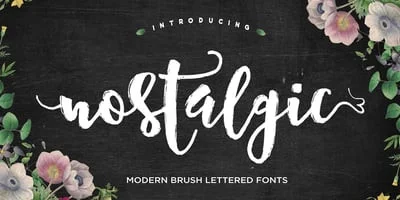
Nostalgic Script
Nostalgic Script Font
Nostalgic Script Font is a wonderfully evocative and charming typeface, perfect for designs that aim to capture a sense of classic elegance, heartfelt sentiment, and vintage appeal. Imagine it gracing sophisticated wedding invitations, adding a timeless touch to artisanal product packaging, or creating a warm, inviting feel for heritage brand logos. It’s an exceptional choice for designing elegant greeting cards, crafting refined editorial layouts, enhancing vintage-themed event posters, and personalizing social media graphics with a bespoke touch. Its graceful flourishes and authentic handwritten feel make it ideal for anything from bespoke stationery to charming historical reproductions, adding a layer of genuine sentiment.
What makes Nostalgic Script Font truly exciting is its remarkable ability to evoke a bygone era while remaining perfectly legible and appealing in contemporary contexts. It possesses an inherent warmth and fluidity that feels genuinely handwritten, yet with the polished consistency required for professional design. Designers are often captivated by its elegant curves, ornate swashes, and the subtle imperfections that give it a unique, authentic character. It’s a font that conveys sincerity, romance, and a sense of cherished memories, making your message resonate with emotional depth and a classic charm. Nostalgic Script Font brings a refined, artistic quality to your designs, ensuring they stand out with timeless beauty and a distinctive, personal touch.
The Nostalgic Script Font family typically offers a range of styles and features designed to enhance its versatility for various creative applications. While specific family members might vary, you can often expect a beautiful Regular weight that embodies its signature elegant flow. Many Nostalgic Script Font families also include a variety of stylistic alternates, ligatures, and swashes, which allow for extensive customization and truly unique typographic compositions that enhance its handcrafted appeal. These additional features enable designers to create highly personalized text, ensuring that Nostalgic Script Font can adapt to intricate design requirements while maintaining its charming, expressive character across various applications and sizes.